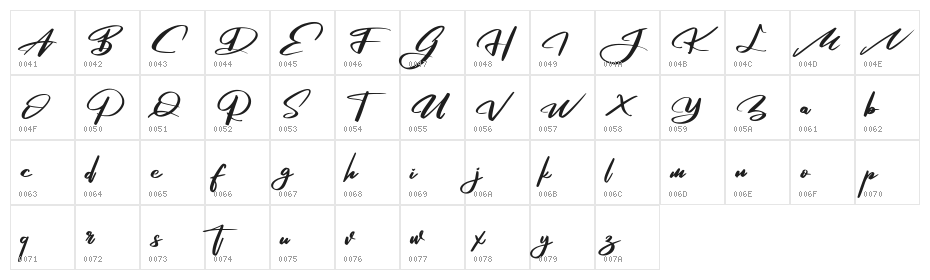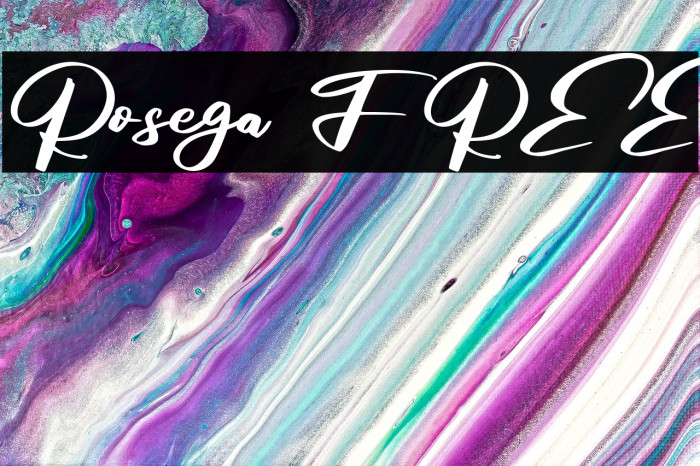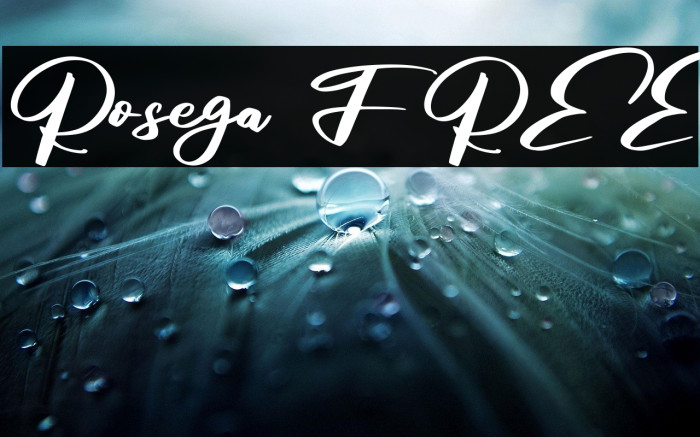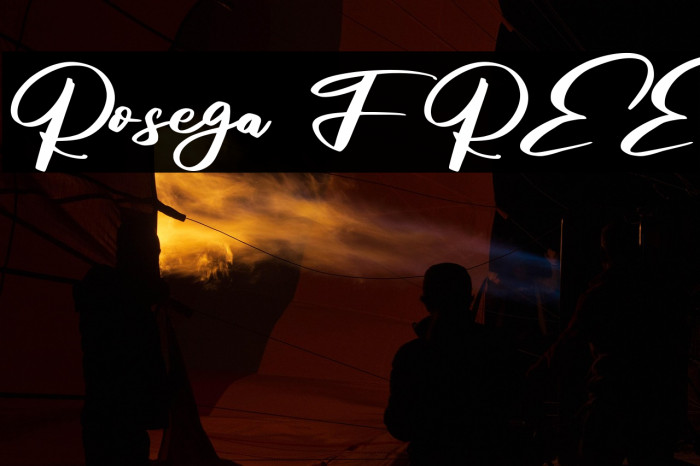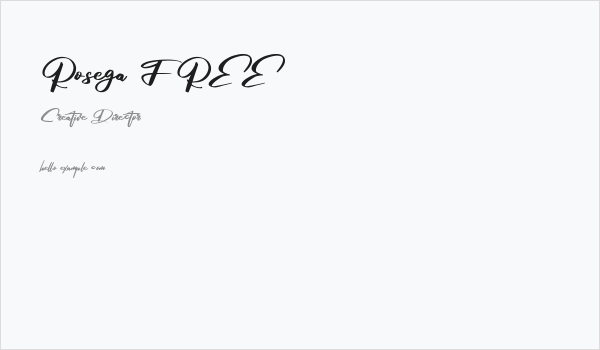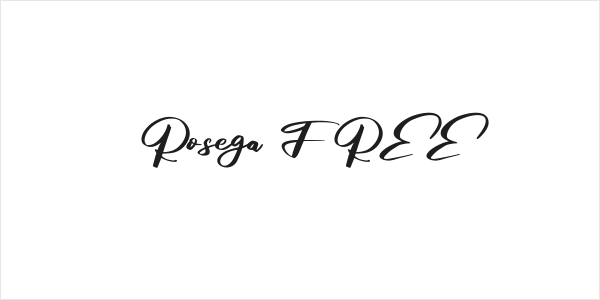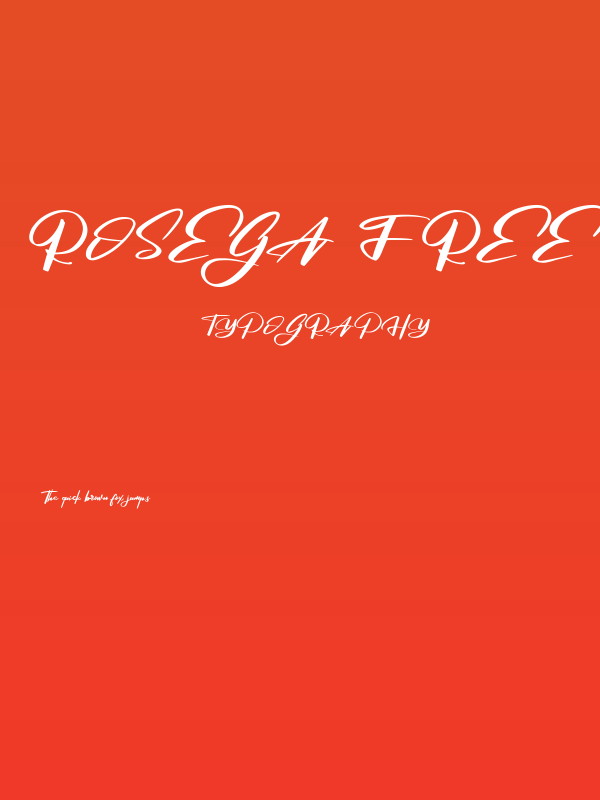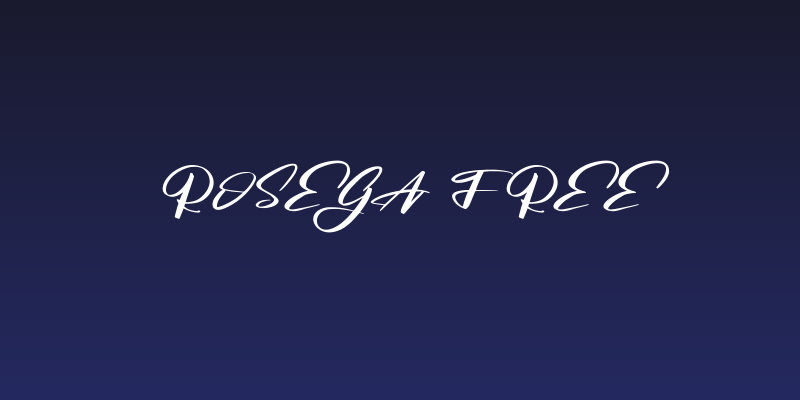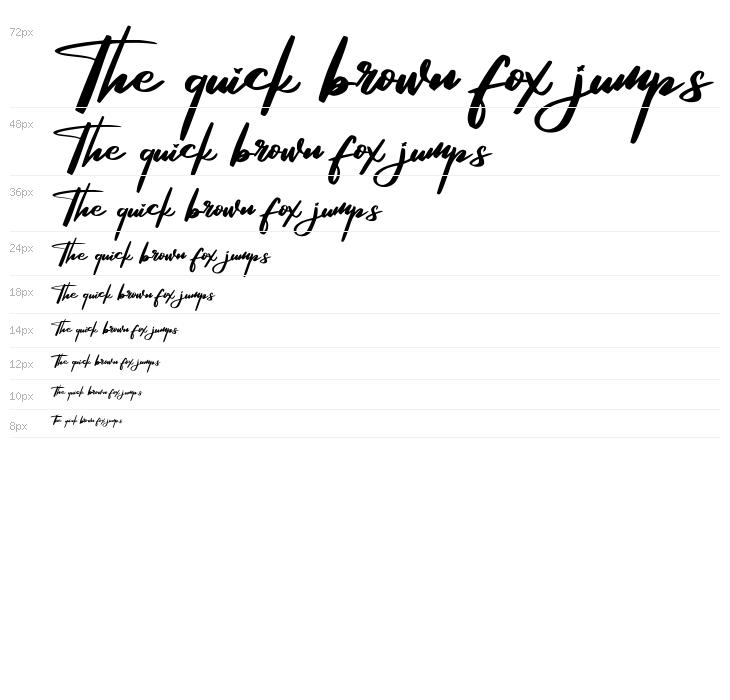
Rosega FREE Font
Rosega FREE Description
This font exudes a dynamic and elegant script style, characterized by its flowing, cursive letterforms that convey a sense of movement and grace. The uppercase letters are bold and sweeping, with intricate loops and flourishes that add a touch of sophistication. The lowercase letters maintain a consistent rhythm, with smooth connections and a natural handwritten feel. The font's overall appearance is both stylish and versatile, making it suitable for a variety of design projects. Its artistic flair is complemented by a balanced weight that ensures readability while maintaining its decorative appeal.